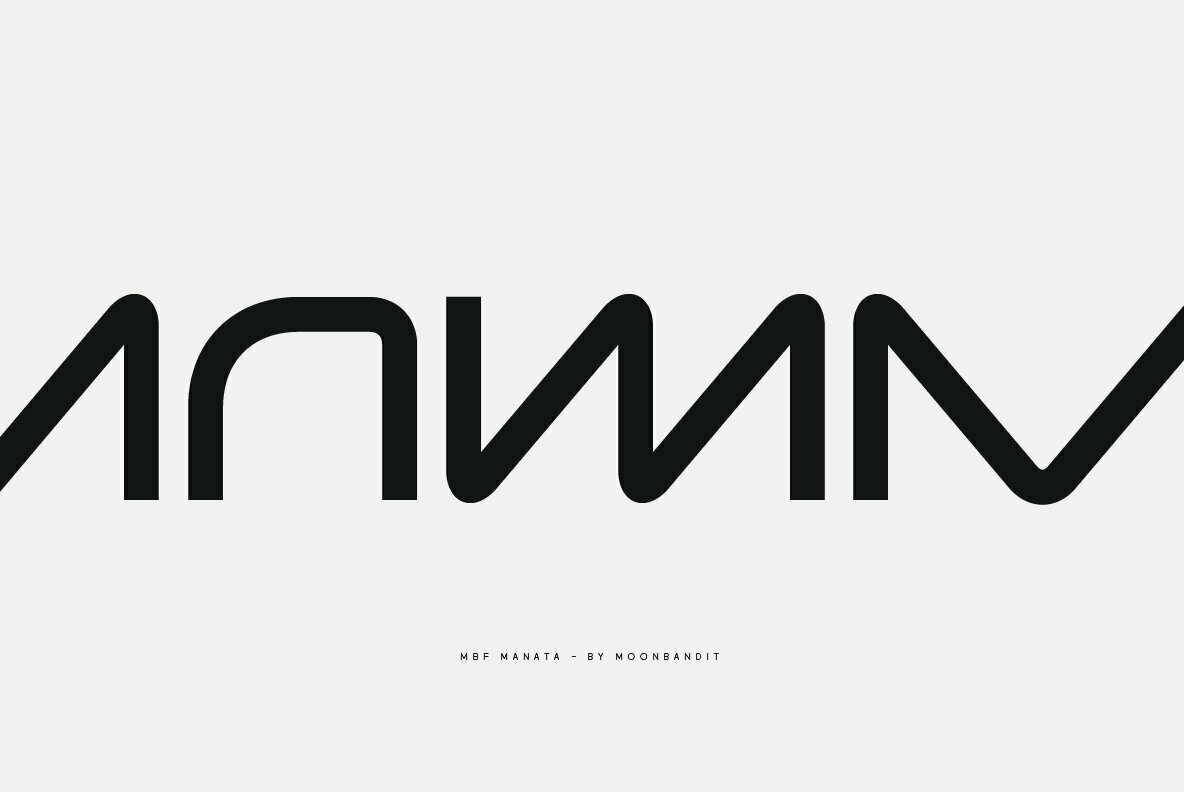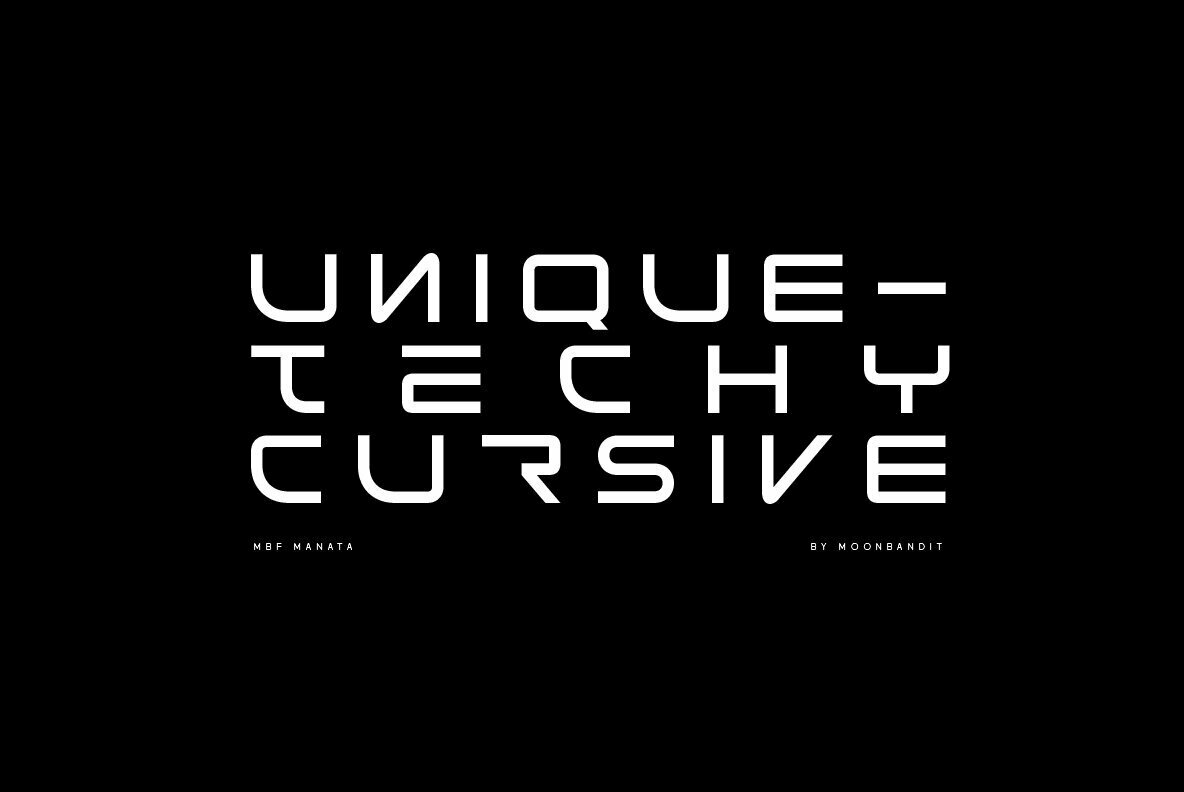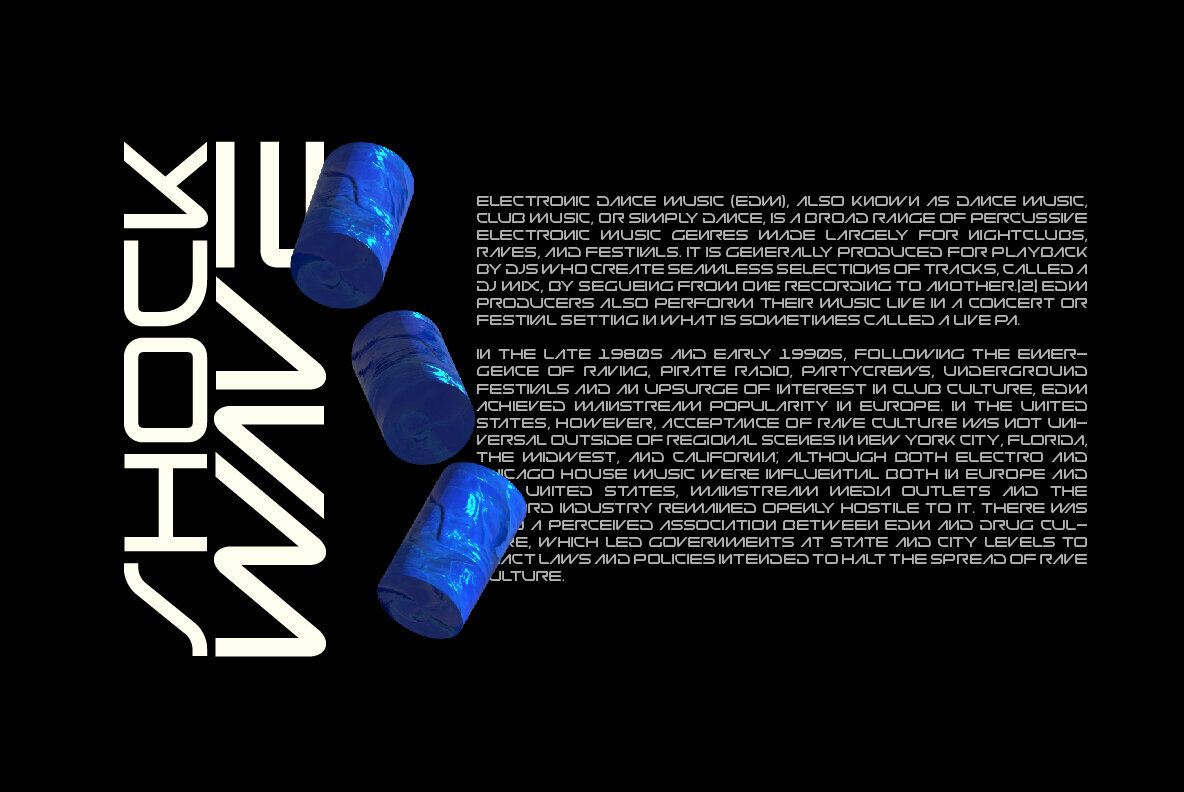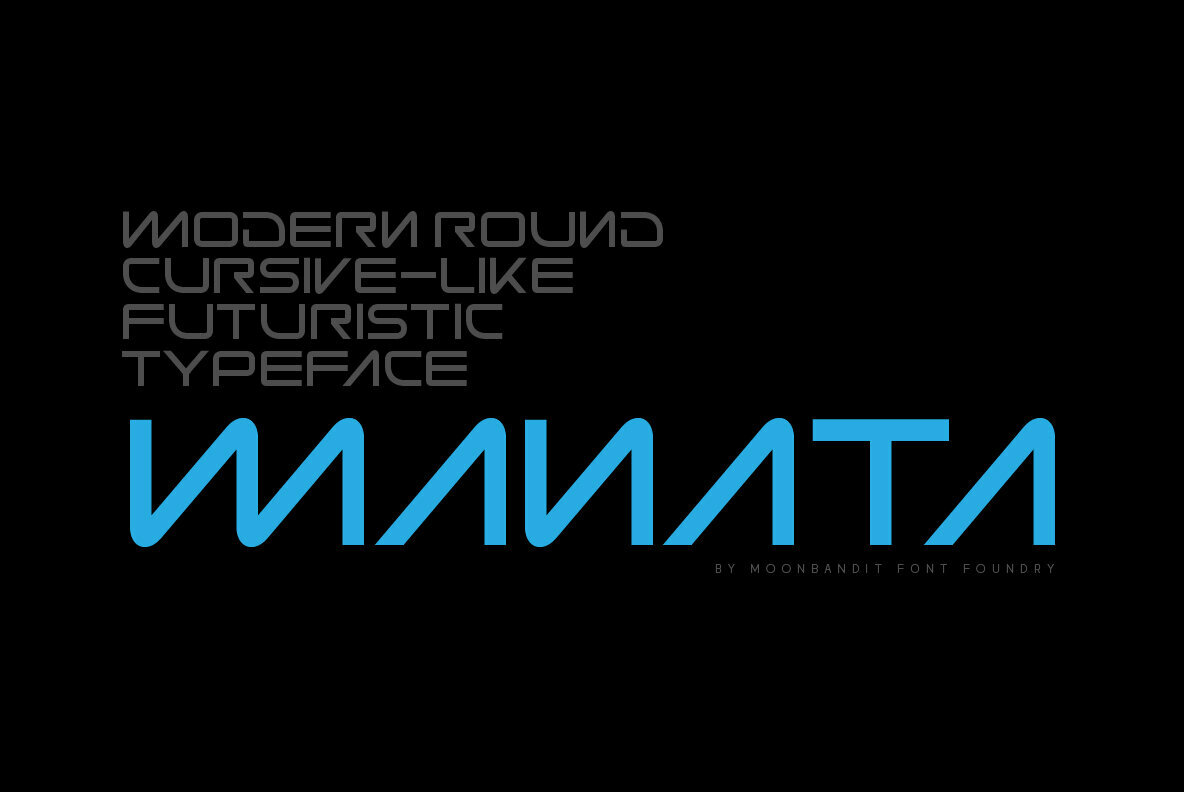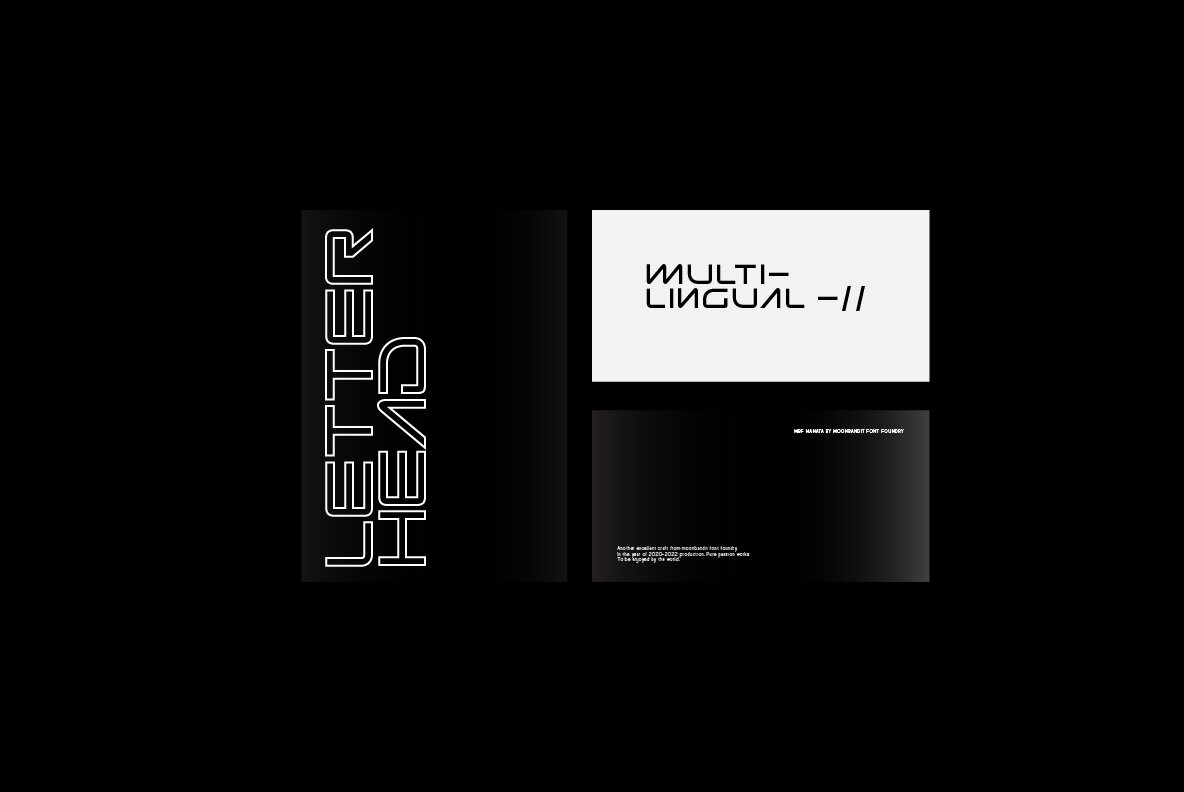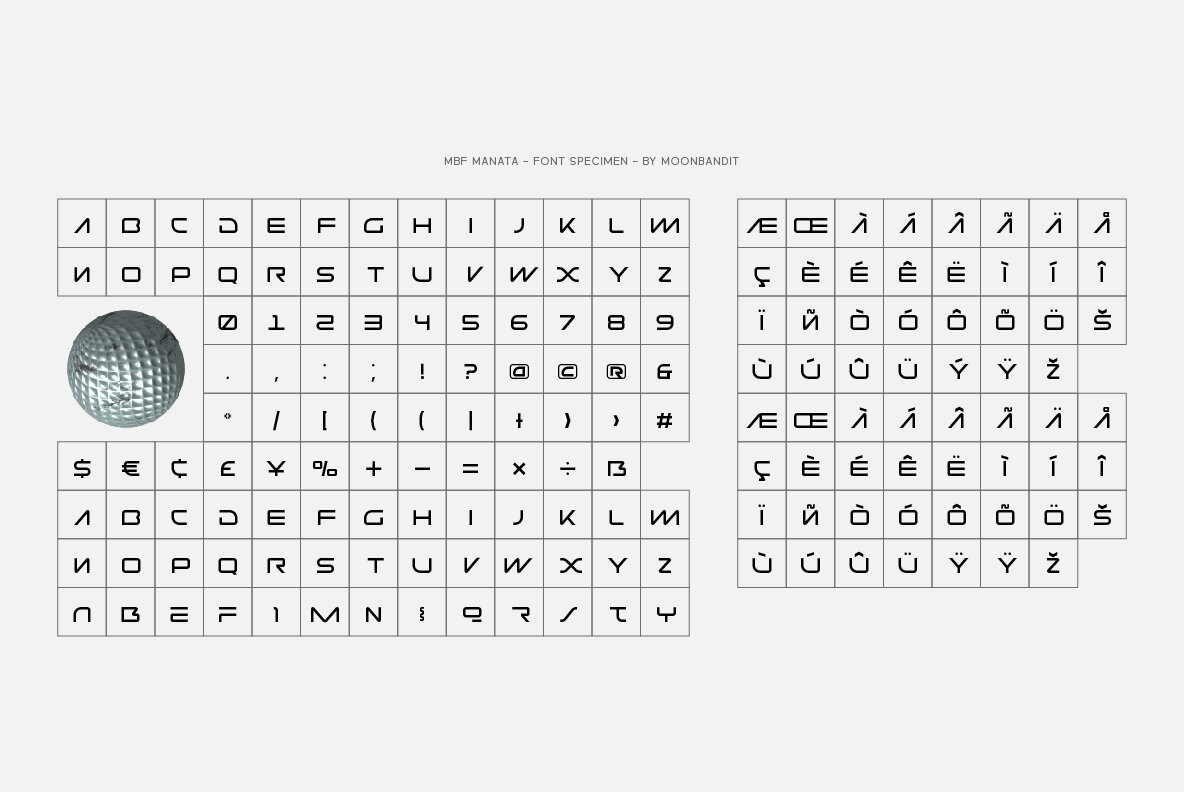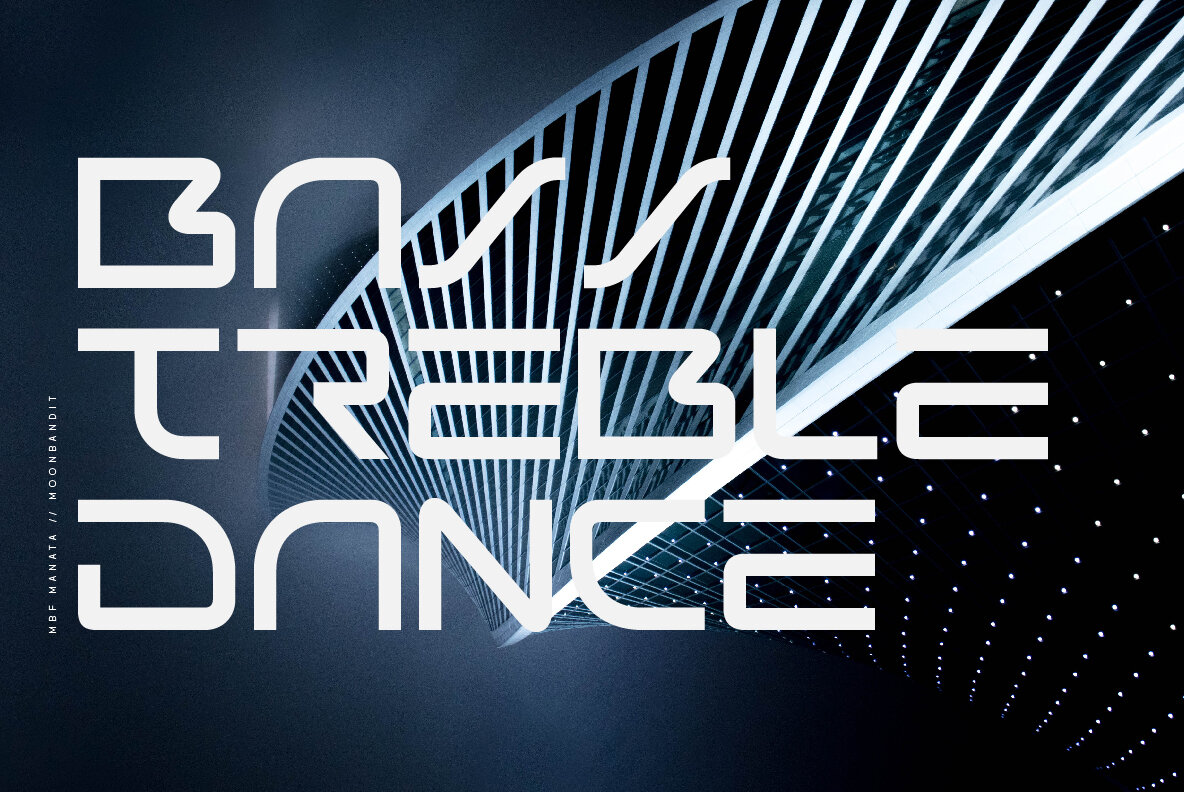
MBF Manata Font
MBF MANATA Regular
Manata is a modern futuristic semi-cursive font. This typeface has a unique angle spreading through each glyphs to enhance dynamic and flow. Combined with straight and sharp stem to balance the overall feel and readability. Perfect usage for large size display, title, poster, logotype and body text. Manata also support multilingual and have several alternate glyphs.